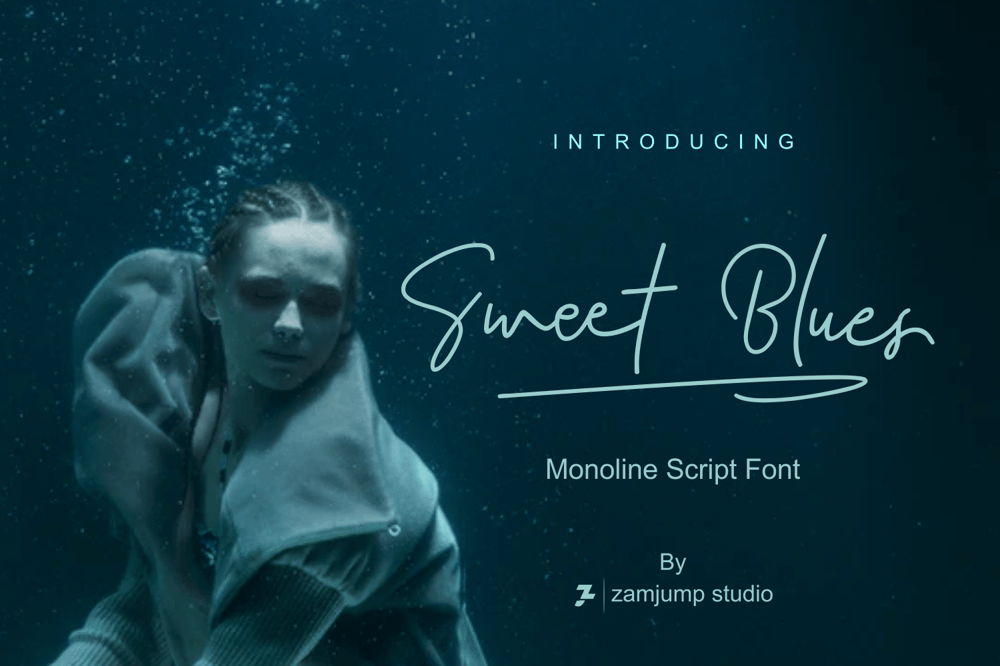
Sweet Blues
Sweet Blues font
Sweet Blues Font Family was designed by Zamjump and published by Zamjump. Sweet Blues contains 1 styles and family package options. Sweet Blues Monoline Script is a signature font that you can use to make a design for Photography logo, logo branding, poster headline, magazines, advertisements, product designs, wedding invitation, signature or handwritten quote, business cards, fashion, . Sweet Blues Monoline Script font including alternates, 15 ligatures and includes textured swashes. Enable the OpenType Stylistic alternates, you need a program that supports OpenType features such as Adobe Illustrator, Adobe Indesign, Adobe Photoshop, CorelDraw & Microsoft Office. a font that made the hand by having the character up and down like a dancer. Freestyle has a very unique style of signature, it is very suitable for use in the work of modern design. Alternative ending character you can use character + underscore ( a_ ) = ending a with swash to open ligature just tap double character [ l l = ll (ligature)] Features:Basic Latin A -Z and a – z Number International Symbol International glyphs Alternate Ligature Languages supported: Breton, Catalan, Czech, Danish, Estonian,French, German, Hungarian, Icelandic, Italian, Romanian, Scottish Gaelic, Slovak, Latvian, Lithuanian, Norwegian, English, Finnish, Polish, Portuguese, Slovenian, Spanish, Swedish, Turkish, Welsh. Basically, all european languages that are based on latin alphabet.